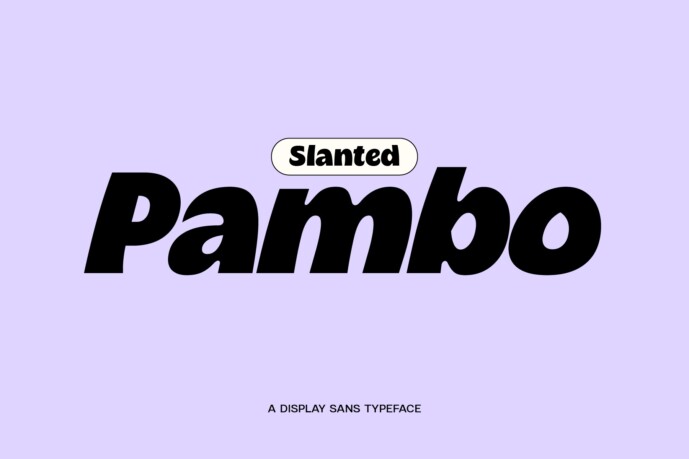
Pambo has a groovy 1960s and 1970s look and is a bold, lively, and retro-inspired font. It is perfect for eye-catching graphics like posters, record covers, and retro-themed branding because of its exaggerated curves and eccentric shapes, which give it a joyful, approachable attitude.
Due to its highly stylized form, it works well as a headline font but is less successful for body text, making it ideal for ornamental or display purposes. Pambo is ideal for projects that call for a whimsical, nostalgic feel since it gives charm and vitality to any design while retaining a powerful visual impact.